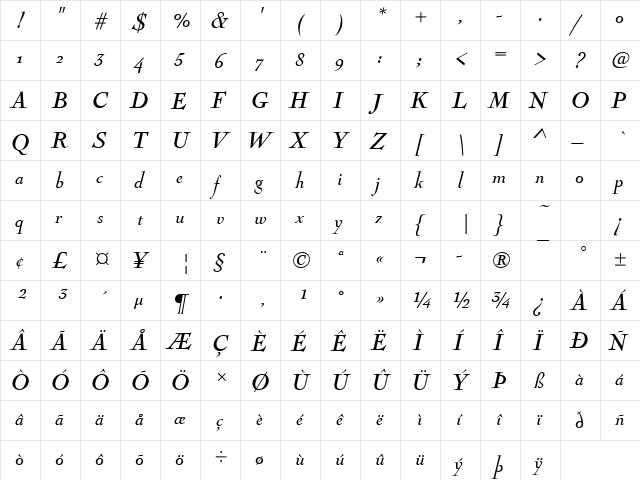
NicolasCocTReg Italic
Design Context for NicolasCocTReg Typeface
NicolasCocTReg takes a measured approach to typography — its balanced proportions and neutral character make it a reliable workhorse for both digital and print work. The slanted form adds forward momentum and visual energy.
Pro Tip: Use NicolasCocTReg for emphasis, pull quotes, and subheadings where its slanted energy can add rhythm to the layout.